How to Choose the Best Font for a Mobile App
Choosing the best font for a mobile app is a technical requirement for user retention. When we talk about font selection, we consider how text looks and reads on small screens. We also check how quickly it renders on slow connections. Designers and developers often face the challenge of users dropping off due to eye strain, especially when cluttered interfaces make navigation difficult.
We selected the fonts in this guide after reviewing the latest UI standards. We checked how these fonts look in real use, including on content-heavy platforms and learning apps, where users read in quick bursts and maintain focus without eye fatigue. The options below help you compare which fonts work for modern mobile interfaces, so let's review the list!
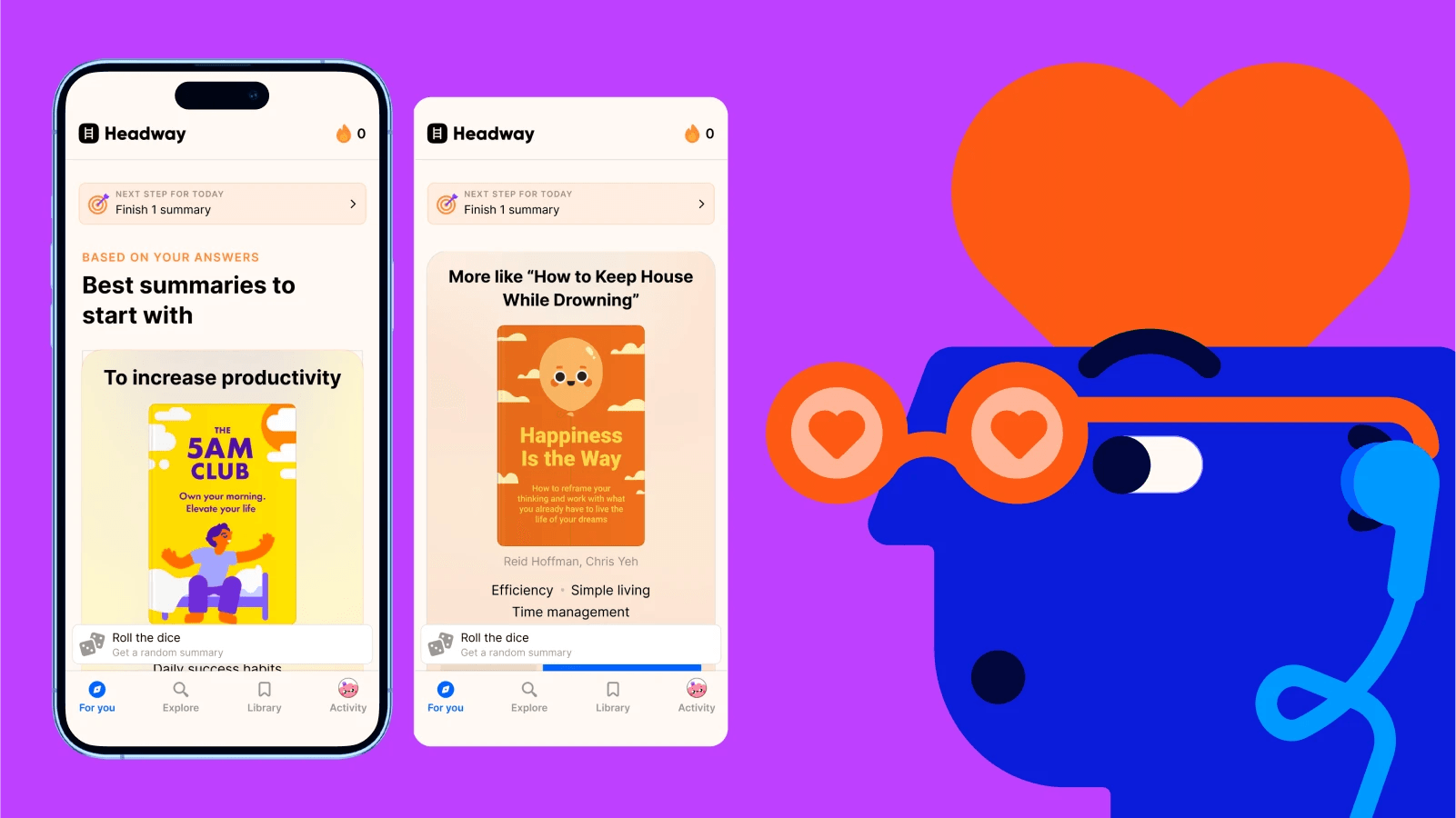
1. System Fonts: Using Native Rendering for Speed
Mobile devices accounted for 58.67 percent of global website traffic by the start of 2025, according to data from the Digital 2025 Global Overview Report. As a result, designing for mobile readability and performance has become increasingly important.
One key aspect of this is typography, where system fonts play a significant role. System fonts are the default typefaces built into the mobile operating system. Examples include:
- San Francisco for iOS
- Roboto for Android
We found that using these native options removes the need for the device to download external font files. This reduces initial load times, and that is why Google recommends sticking to system fonts for standard UI elements. The operating system handles the weight and spacing adjustments automatically.
Learning apps typically use clean, modern system fonts that feel native to mobile devices, making the interfaces easy to read and familiar to users. The typography is simple and highly legible, with interactive elements. The clean, rounded look and spacing strongly match San Francisco in particular.
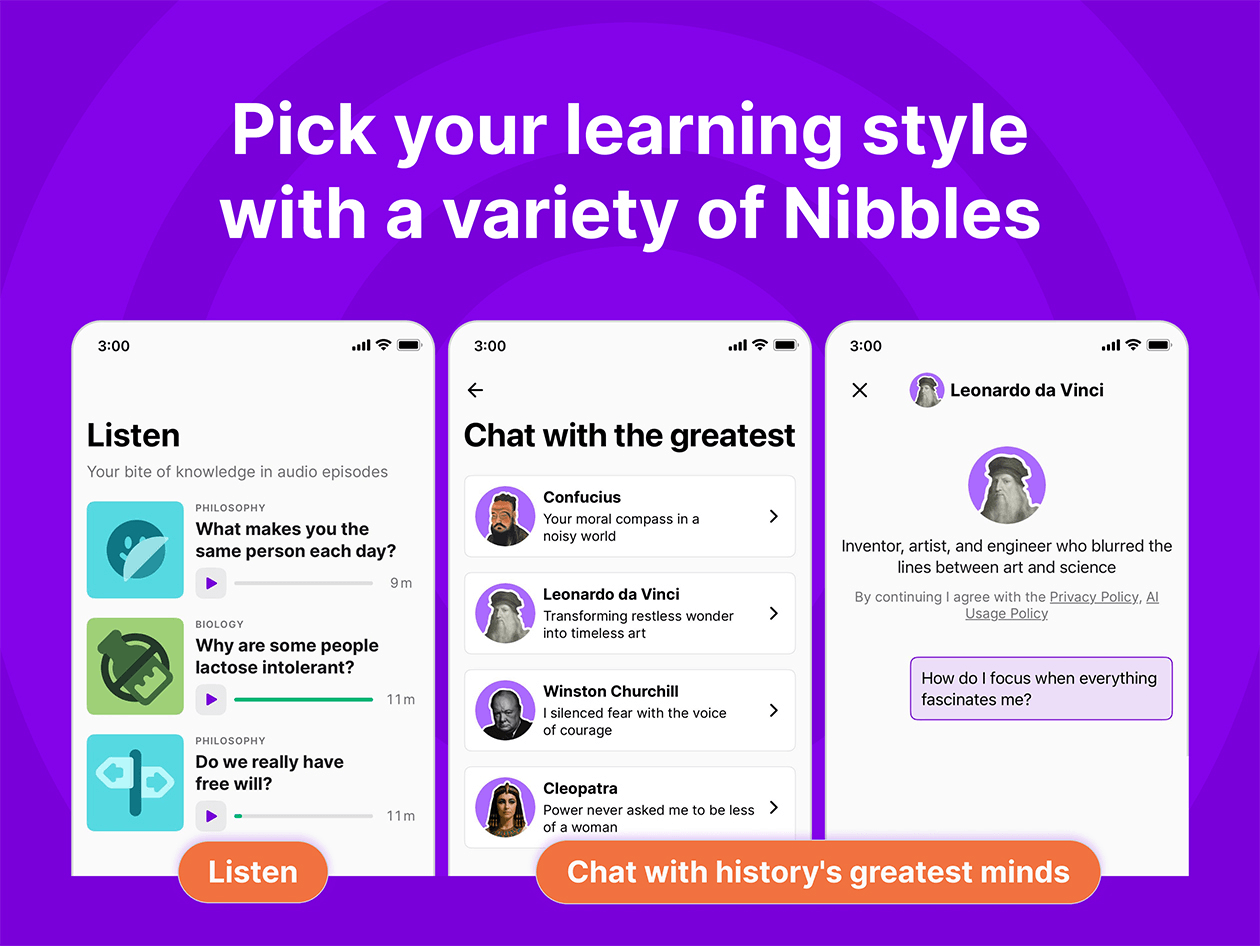
Controlling How Easy It Is to Scan Information
You can use system fonts when performance is critical. This creates a look that feels like a natural part of the phone. Because the system font is already stored on the device, the text appears instantly. This is helpful when you are building sites or apps to make friends, where every millisecond of loading counts.
Fast rendering helps maintain user engagement during social interactions. Using native fonts provides several immediate technical benefits:
- Zero additional latency because no external assets are fetched from a server.
- Automatic support for the platform's specific accessibility features, like Apple's Dynamic Type or Android's system font scaling.
- The text weight and tracking adjust perfectly to the screen's pixel density without manual CSS or XML tweaks.
2. Google Fonts Library: Testing Free Typography in UI
The Google Fonts library is an open-source collection. It provides thousands of typefaces for mobile and web use. We see many developers using this library because it allows for experimentation with different styles without licensing costs. The collection provides data on how different weights affect reading comprehension. This is useful for educational interfaces.
You can browse the library to find fonts that match your brand identity. These fonts maintain technical compatibility across different devices. You can use these fonts during the prototyping phase to see how a specific look affects user interaction. This library is a standard resource for early-stage products. It provides a custom look without a custom price tag.
3. Inter Font: Reading Speed in UI
Inter is a variable font specifically designed for computer screens and mobile displays. We noticed that many SaaS apps choose Inter because it features a tall x-height. This makes lowercase letters easier to read at small sizes.
The design uses specialized glyphs. This prevents characters like lowercase i and lowercase l from looking the same. For example, let's take a basic comparison in plain text. The next letters and numbers may look very similar in some fonts: i l 1. In a poorly optimized font, these three can blur together. You may need extra time to read them. Imagine a username: milani vs. milan1
vs. milanl.
If the font does not clearly separate i, l, and 1, the names can look almost the same at small sizes. Fonts designed for screens add small differences:
- i keeps a visible dot
- l may have a tail or slight curve
- 1 often has a base or angled top
Showing Analytics Where Every Number Stays Distinct
You can use Inter when your app has a lot of data or numbers. It keeps the interface clean, even when you have to pack a lot of information into a single view. The font remains sharp on high-resolution retina displays. It also works on older mobile screens.
This makes it a reliable choice for content-heavy dashboards. Developers prefer Inter for specific UI reasons:
You can start by testing a system font to ensure your app loads quickly. You can also experiment with options like Inter or Open Sans for specific content needs. You can check how your chosen font scales when users change their device settings. Try one of these fonts in your next prototype and see how it changes how you interact with the interface!